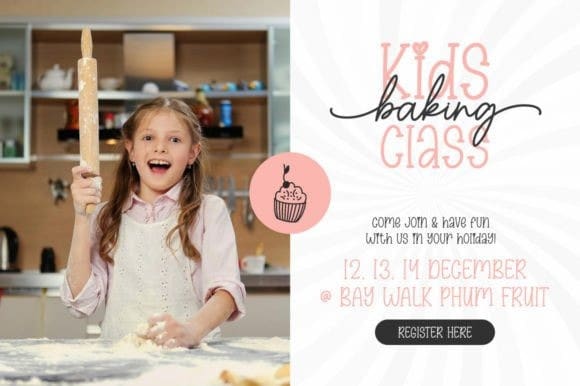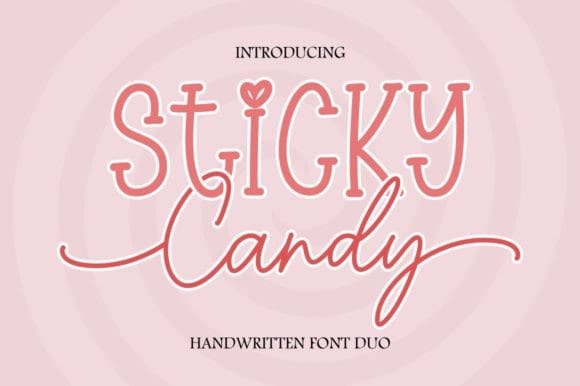
Sticky Candy Font Duo
Sticky Candy Font Duo, consists of two handwritten fonts designed to complement each other perfectly. Together or apart, these fonts are ideal for adding a chic and cheery touch to your crafts.